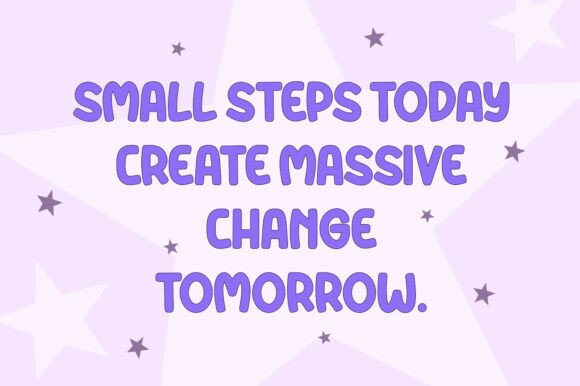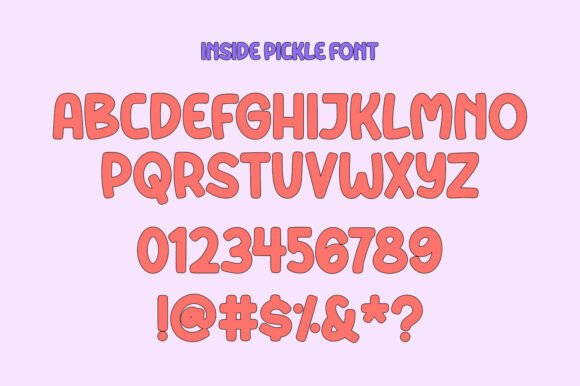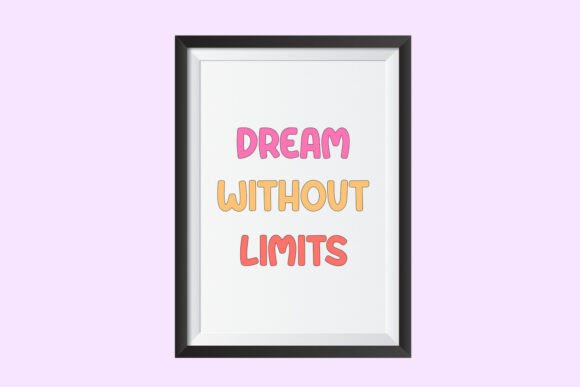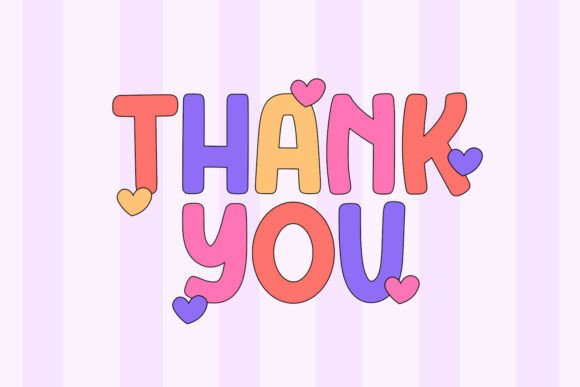
Introduction to Inside Pickle Font
This cute and playful handwritten sans font is designed to bring warmth, joy, and personality into every creative project.
Inspired by casual handwriting and rounded sans shapes, this font feels friendly, natural, and full of charm Each letter flows smoothly with soft curves and balanced spacing, making it easy to read while still keeping a fun, handmade character.
Key Features of Inside Pickle Font
Inside Pickle Font offers exceptional quality and versatility, making it a valuable addition to your design toolkit. Whether you’re creating for personal projects or commercial use, Inside Pickle Font delivers professional results.